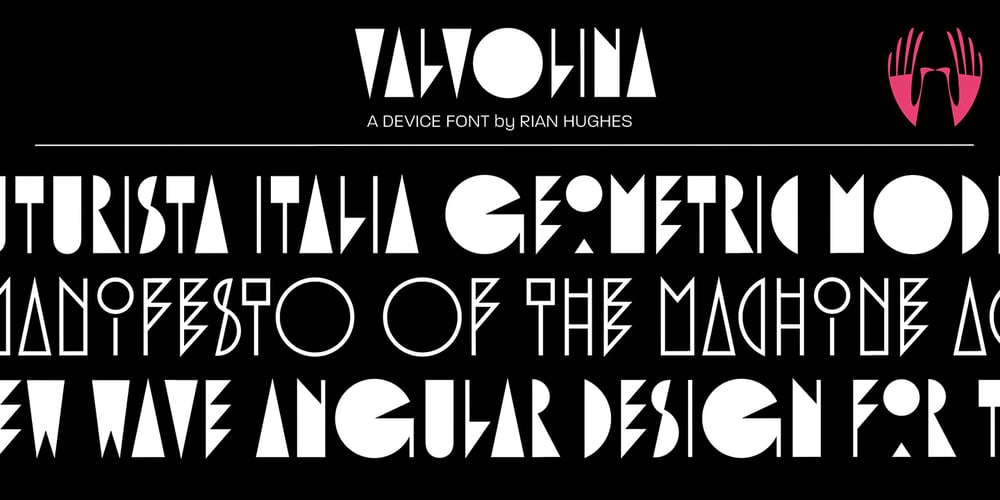
Valvolina
Valvolina font
Valvolina Font Family was designed by Rian Hughes and published by Device. Valvolina contains 2 styles and family package options. Valvolina is a bold headline font inspired by Italian Futurism and the Moderne graphic design of the inter-war period. It uses elementary geometric shapes to build its characters, lending it an energy and punch. Dramatic and contemporary.